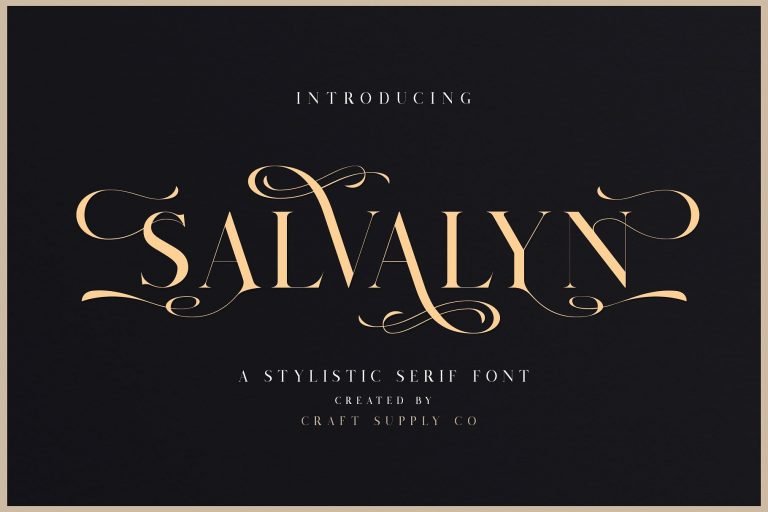
Salvalyn Serif Font
Hi designer! Introducing Salvalyn Font! It is designed and shared by Craft Supply Co. Salvalyn – Stylistic Serif Font is an elegant serif font that offers a wide range of possibilities, especially for a lot of alternative. Salvalyn – Stylistic Serif Font offers an attractive tool for producing elegant decorative lettering, for example, for book covers or for posters and packaging.